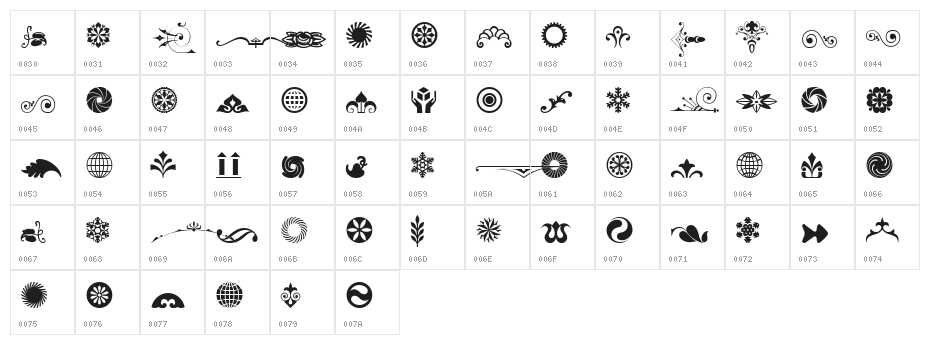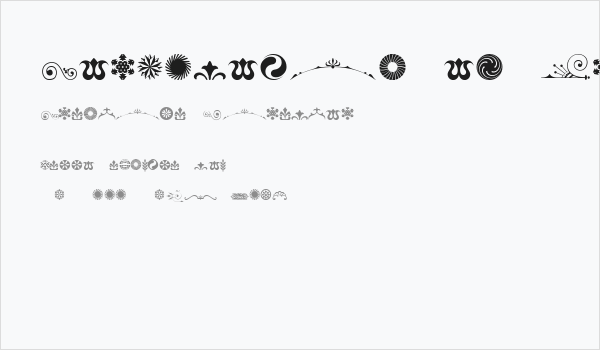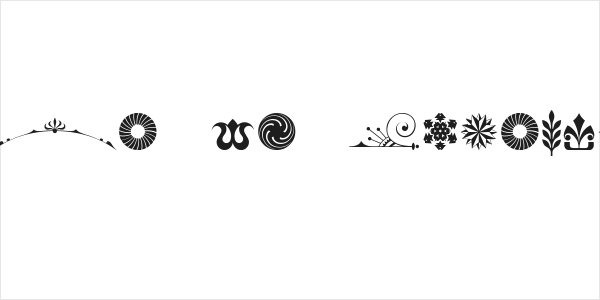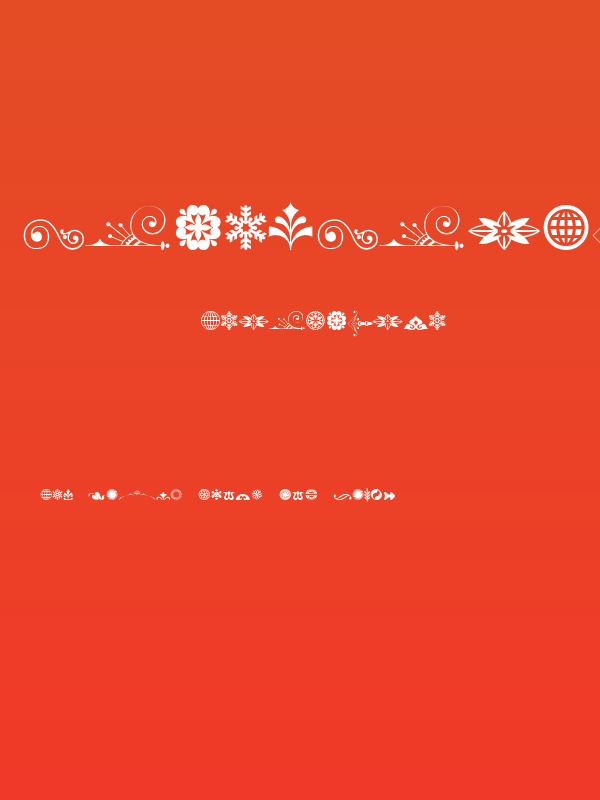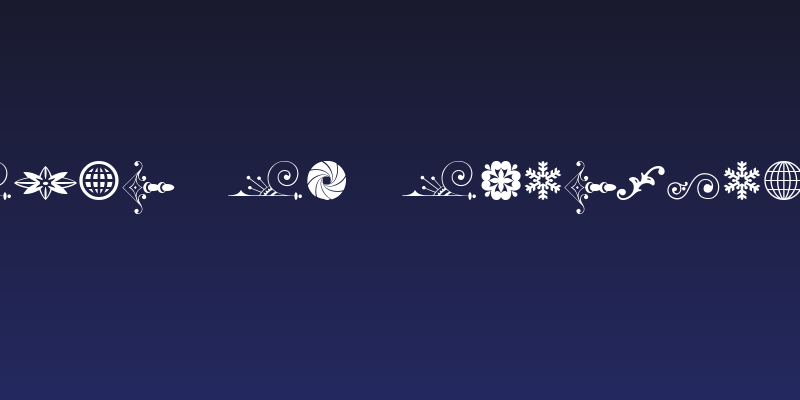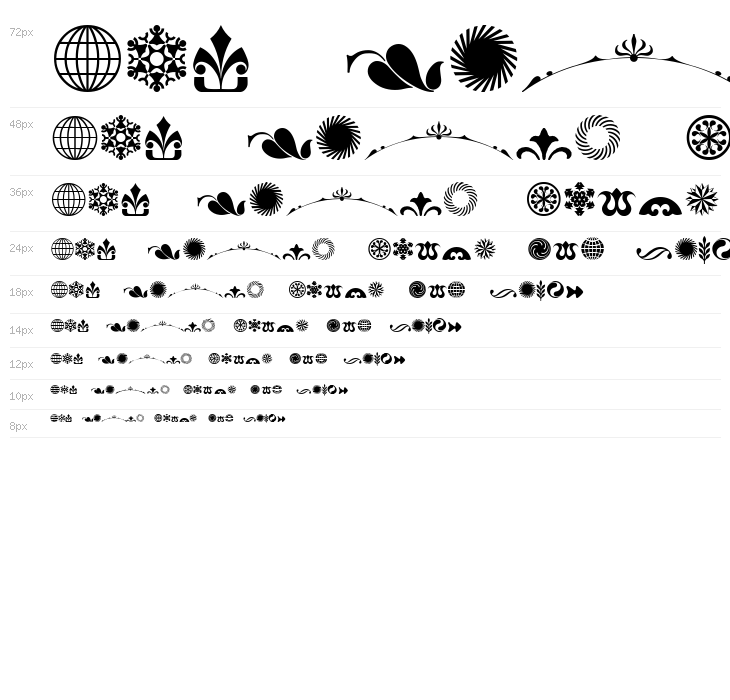
Cornucopia of Ornaments Three Font
Cornucopia of Ornaments Three Description
A collection of highly decorative ornamental glyphs featuring swirls, flourishes, geometric shapes, floral motifs, and intricate borders. The designs are bold, with varying levels of detail and symmetry, suitable for embellishing documents or graphic projects.
| Overall Style | Decorative, Vintage |
| Use Case | Borders, embellishments, dividers, graphic accents |
| Proposed Projects | Invitations, certificates, book covers, decorative borders, vintage-style branding, graphic embellishments. |